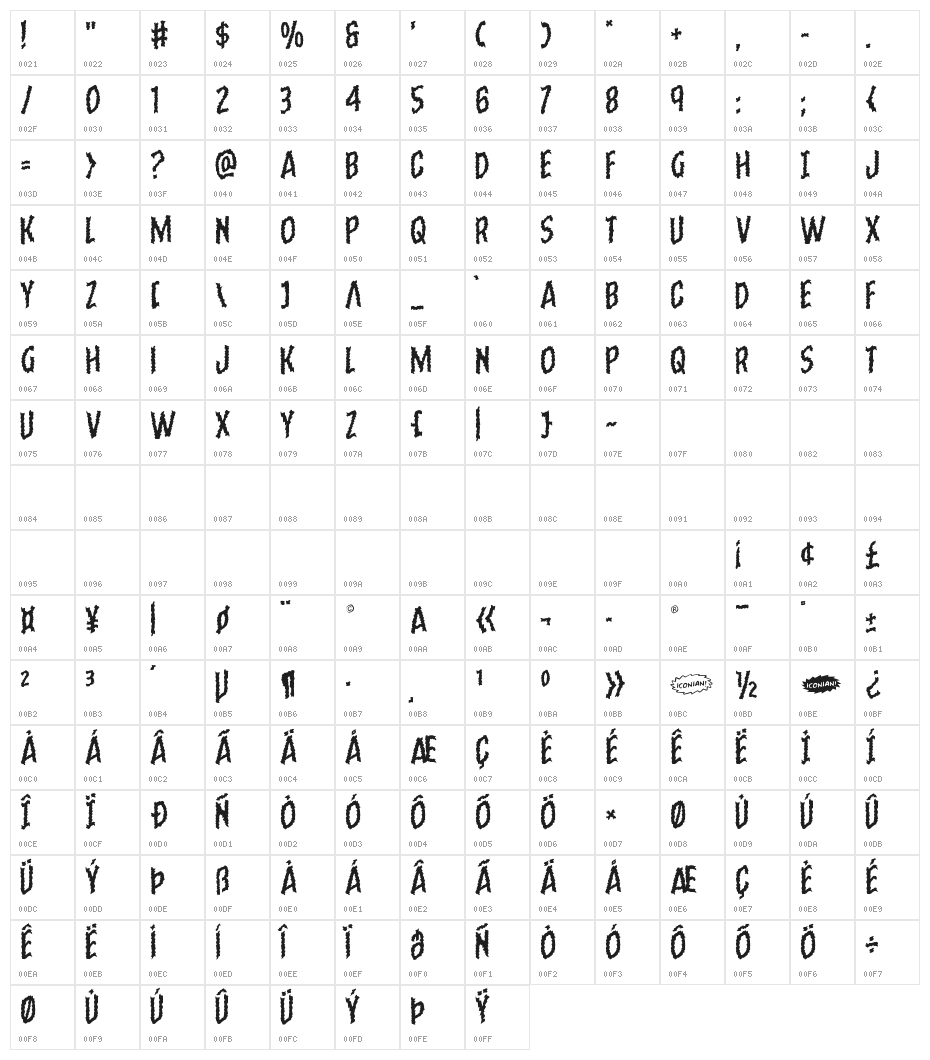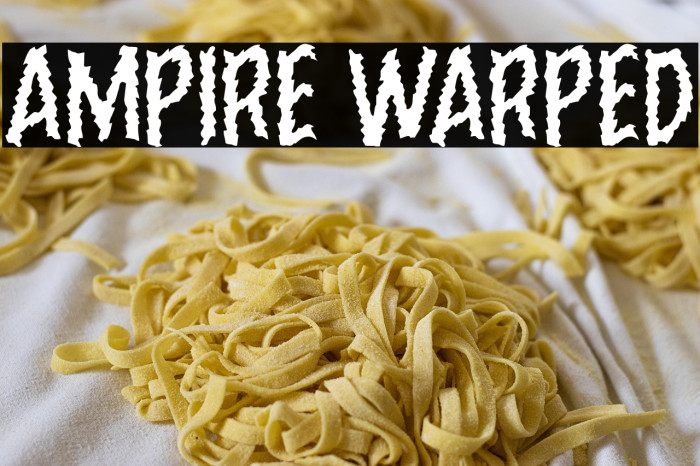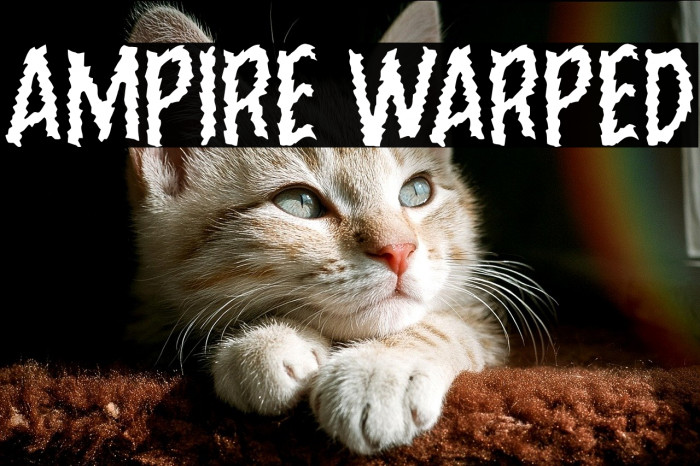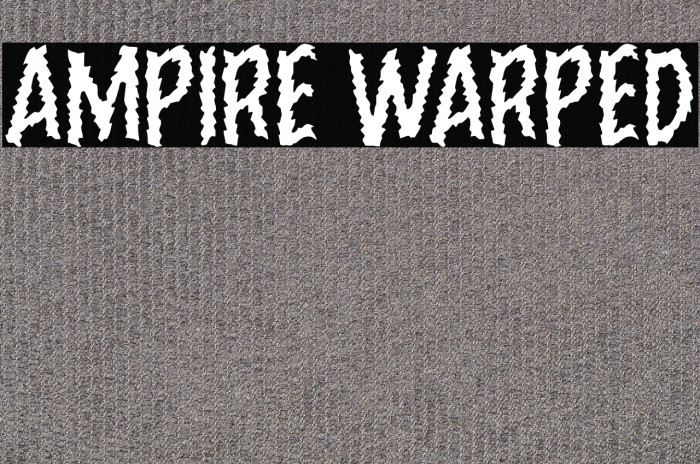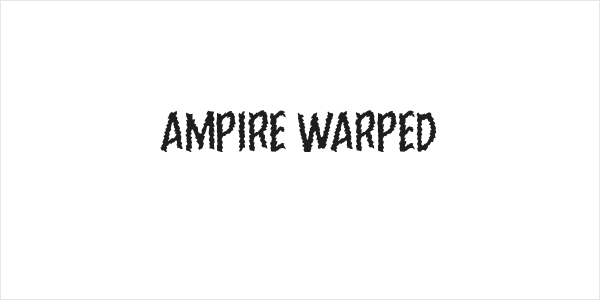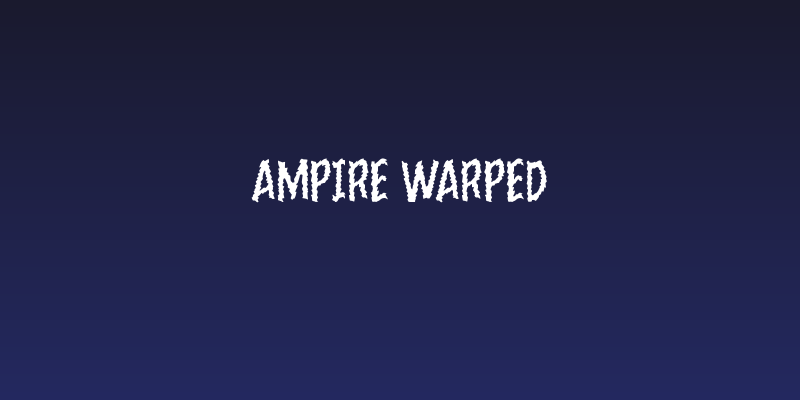
Ampire Warped Font
Ampire Warped Description
This font features a jagged, distorted style that gives it a dynamic and edgy appearance. The characters are bold and irregular, with sharp angles and uneven edges that create a sense of movement and energy. The uppercase and lowercase letters maintain a consistent style, with the numbers and special characters following suit. This font's unique design makes it stand out, offering a visually striking option for creative projects. Its boldness and irregularity suggest a rebellious or unconventional theme, making it suitable for attention-grabbing headlines or artistic expressions.
| Proposed Projects | Ideal for posters, album covers, Halloween-themed designs, or any project requiring a bold, unconventional look. |